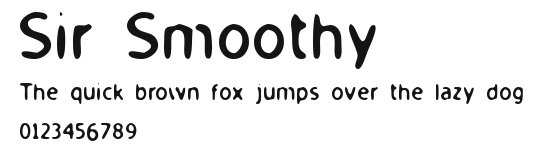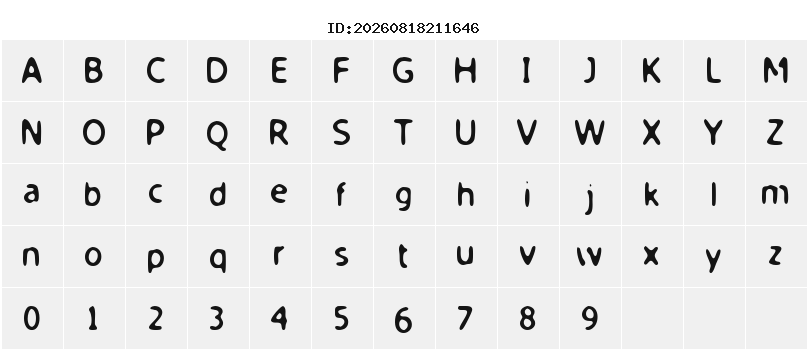
Sir Smoothy Preview
About Sir Smoothy.ttf
Sir Smoothy.ttf is a modern, elegant sans-serif font designed for ultimate readability and visual harmony. Perfect for branding, headlines, web design, and print materials.